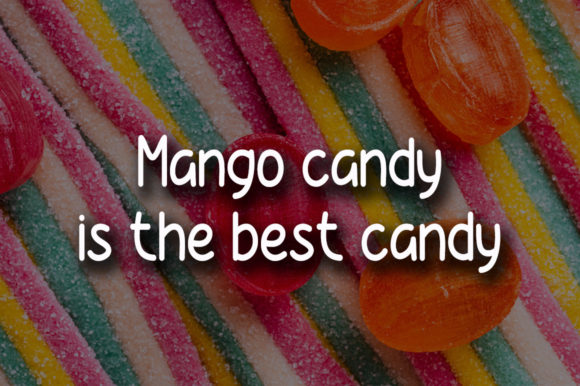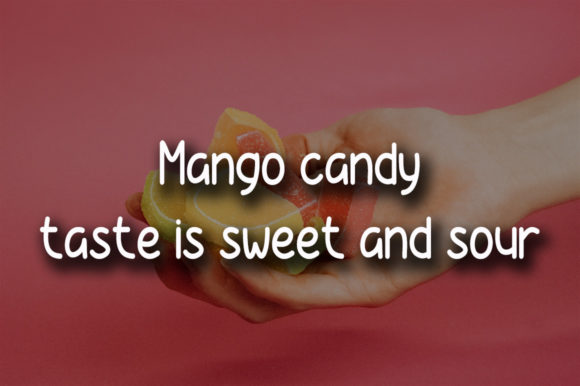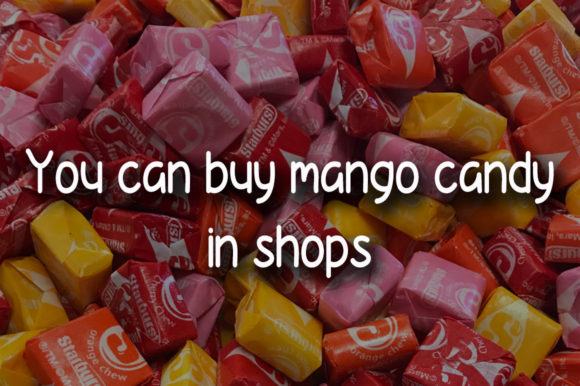
Introduction to Mango Candy Font
Do you remember that moment when you were brainstorming ideas for a creative project and you stumbled upon the perfect font? For designers, finding the right font can be a game-changer. It’s like discovering a hidden treasure that elevates your entire design. This is exactly what happened when I discovered the Mango Candy Font.
As I explored this beautiful handwritten font, I was immediately drawn to its natural and unique style. The Mango Candy Font is more than just a design resource – it’s a tool that can add a personal touch to your projects. With its high quality and versatility, this font is a must-have for any designer looking to create something truly special.
Whether you’re working on a project that requires a free download or need a font with a transparent background, the Mango Candy Font is an excellent choice. Its sweet and friendly style makes it incredibly fitting to a wide range of designs, limited only by your imagination.
Key Features of Mango Candy Font
- Unique, playful design perfect for creative projects and children’s content
- Features a transparent background, allowing for easy customization and versatility in design
- Available in multiple sizes and resolutions, making it suitable for a range of design applications
- Designed with a bold, colorful aesthetic, ideal for use in digital and print media, including social media, advertising, and packaging
Honest Review: Mango Candy Font
I recently stumbled upon the Mango Candy Font, and I’m excited to share my thoughts on this design resource. Overall, it’s a great addition to any designer’s toolkit, especially for creative projects that require a playful and whimsical touch.
- The Mango Candy Font is a high-quality font that’s perfect for free download. It’s well-designed and features a unique, hand-drawn aesthetic.
- The transparent background makes it easy to use this font in various design contexts, from digital projects to print materials.
- The font is highly versatile and can be used in a range of creative projects, from branding and marketing materials to social media graphics and more.
- The font is limited in terms of character set and language support, which may be a concern for designers working on projects that require a wider range of characters.
- The font’s unique aesthetic may not be suitable for all design projects, particularly those that require a more professional or formal tone.
Overall, I’m impressed with the Mango Candy Font, and I think it’s a valuable addition to any designer’s toolkit. With its high-quality design, transparent background, and versatility, it’s a great resource for creative projects. However, its limitations should be considered before using it for more complex or formal designs.
Mango Candy Font
Tips for Getting the Most Out of Mango Candy Font
To get the most out of the Mango Candy Font, use it with a transparent background to create a stunning visual effect. You can also experiment with different font sizes and colors to add depth and interest to your design.
The Mango Candy Font is perfect for:
- Food and beverage branding
- Wedding invitations and decorations
- Children’s party designs